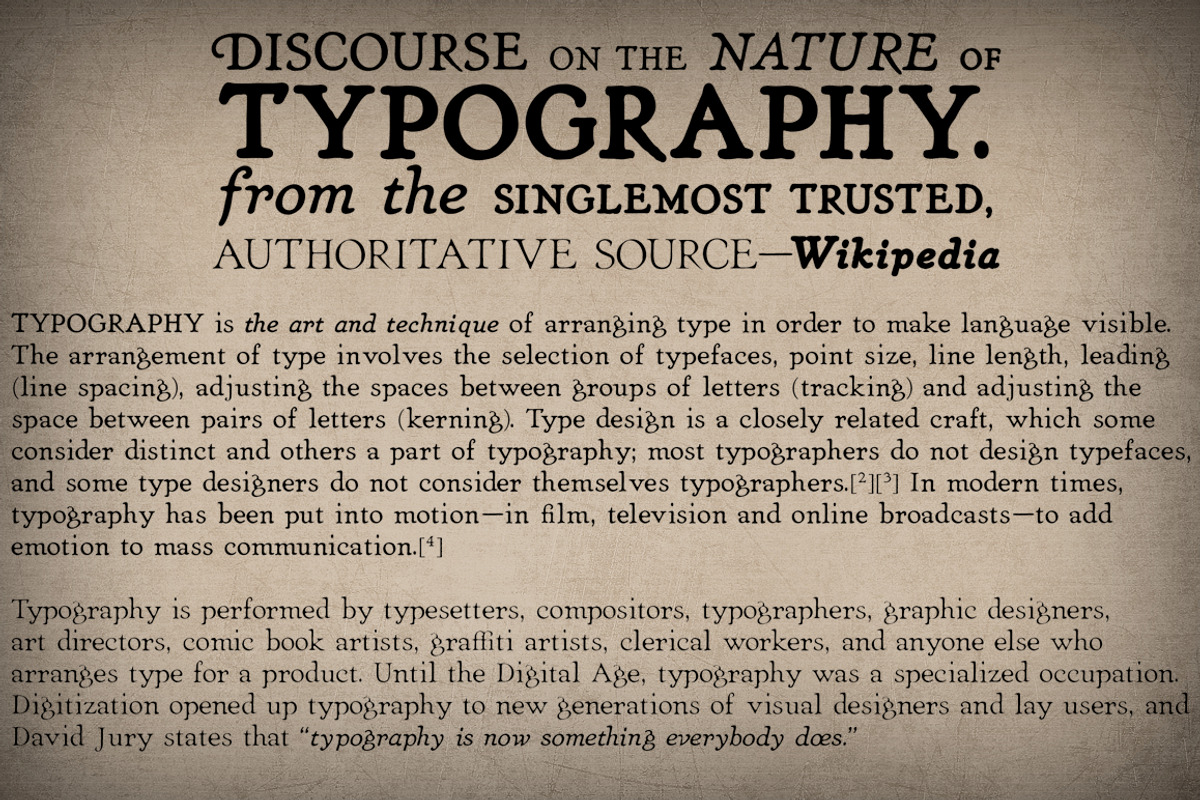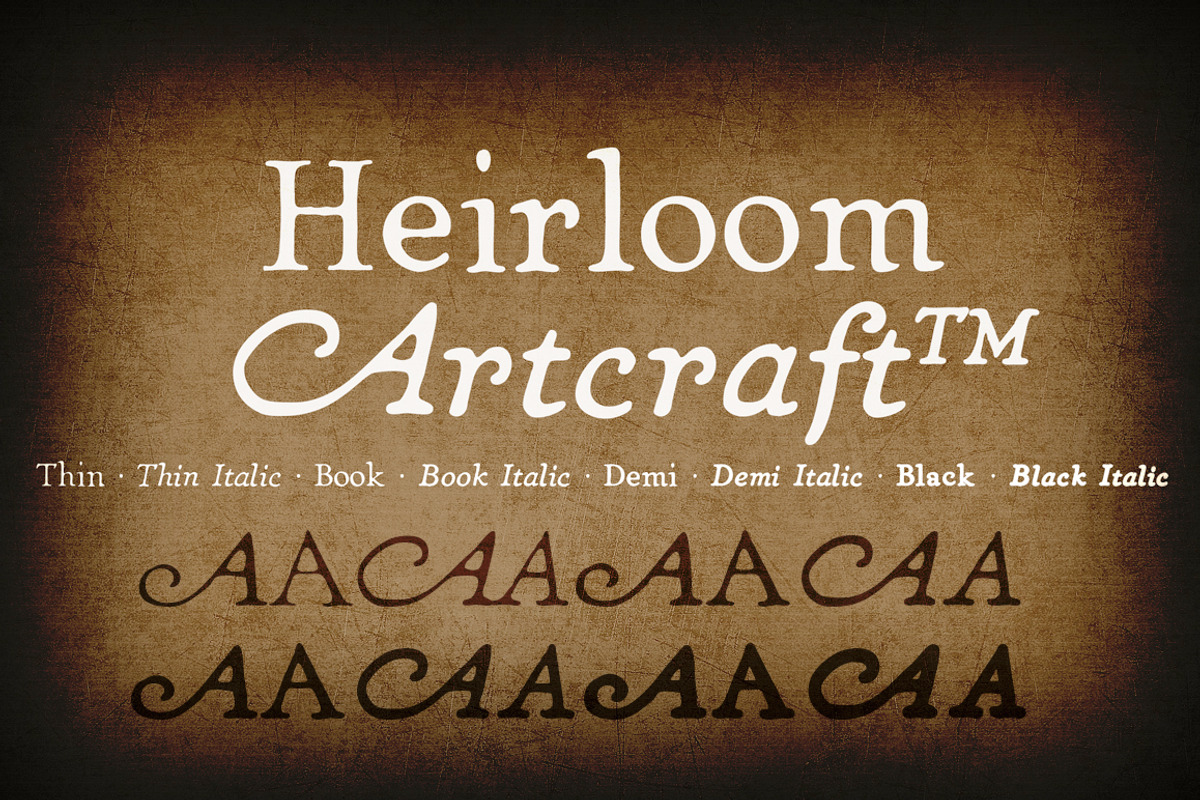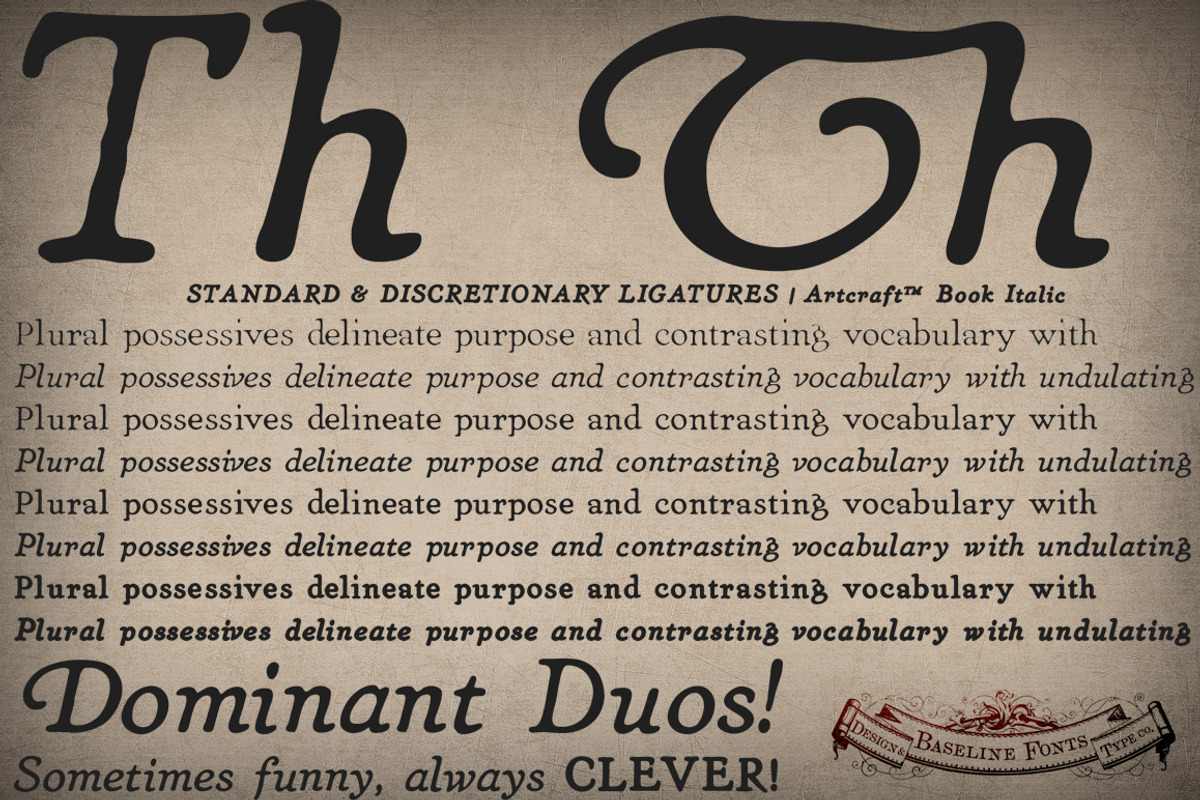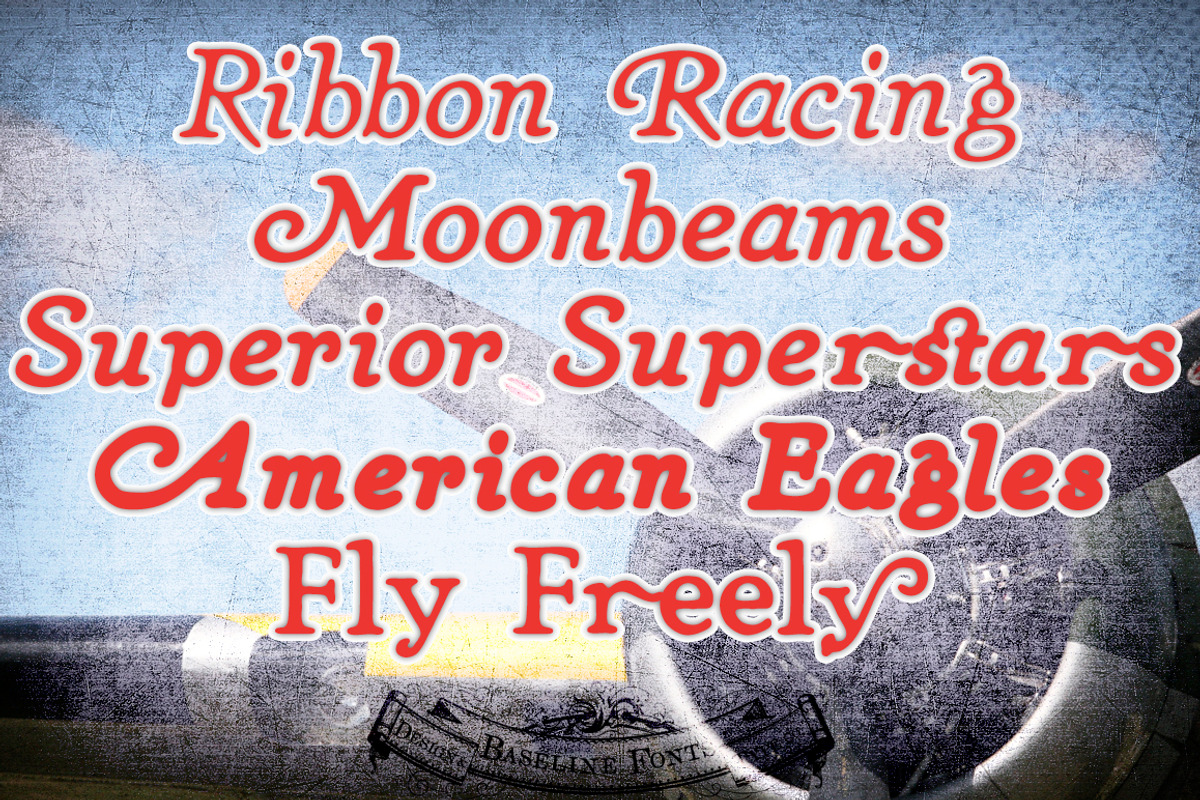
Heirloom Artcraft Family
Heirloom Artcraft Family by Baseline Fonts is a font selected for branding, posters, packaging, typography.
- There are many alternate ligatures available within the font including capital alternates for T, A, P, B, D, and N.
- It also features Metrics and Optical kerning-- metrics displays characters with letterpress-traditional spacing that is pleasantly askew, or
Why Heirloom Artcraft Family is worth a look
Heirloom Artcraft Family by Baseline Fonts fits naturally into Branding, posters, packaging, typography.